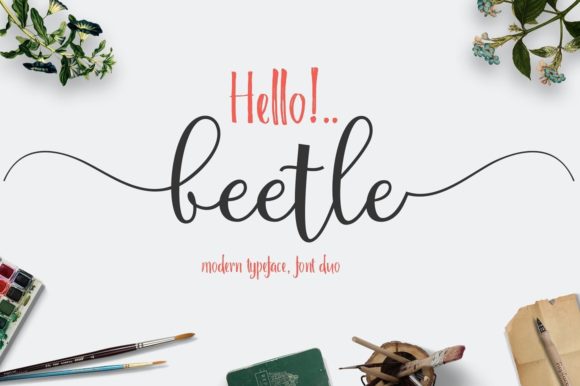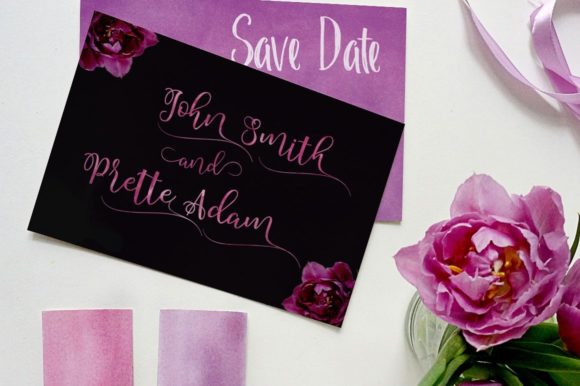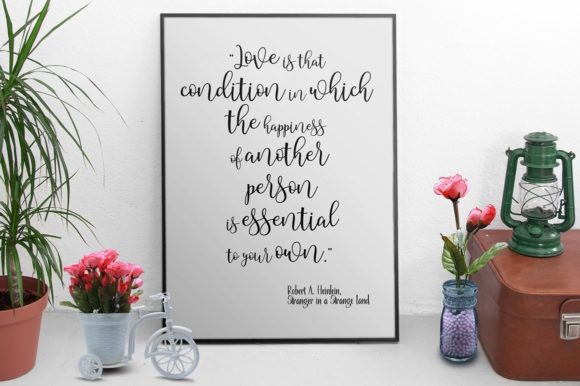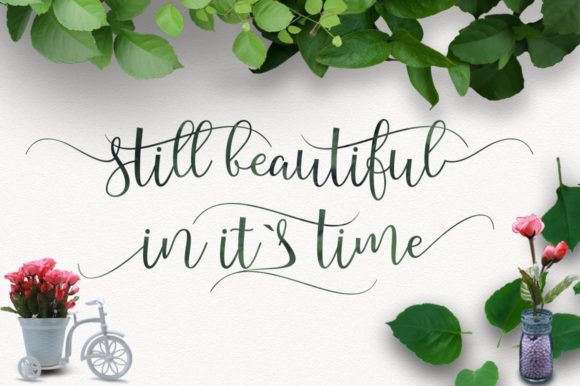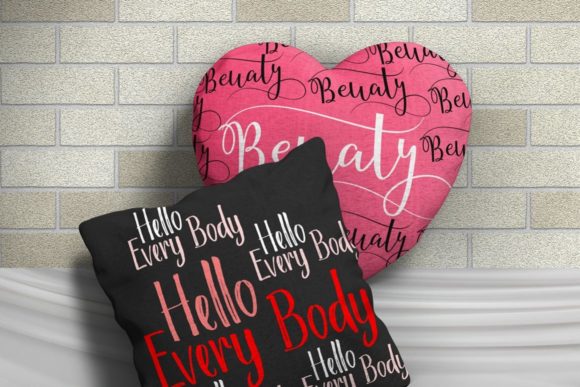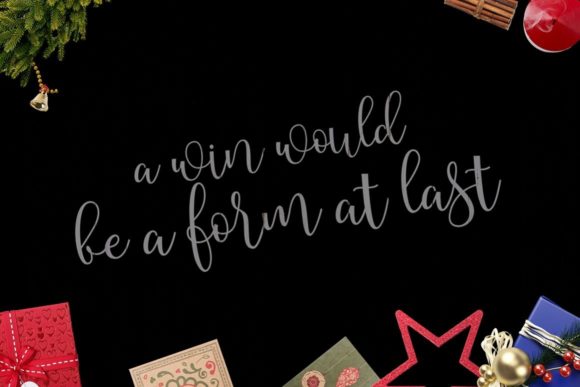
Beetle and Rantes Font
About Beetle and Rantes Font
Beetle and Rantes is a stylish and incredibly elegant duo script font. It looks stunning on wedding invitations, thank you cards, quotes, greeting cards, logos, business cards and every other design which needs a handwritten touch. Beetle and Rantes is PUA encoded which means you can access all of the glyphs and swashes with ease!